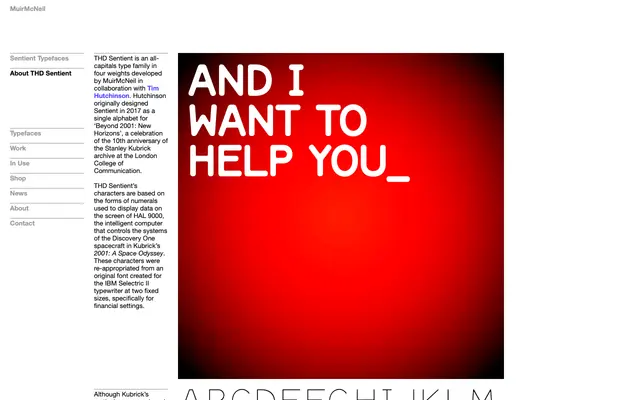
THD Sentient
Muirmcneil · Tim Hutchinson · 2017
An all-capitals display family derived from the IBM Selectric II numerals famously visible on HAL 9000's screen in Kubrick's 2001: A Space Odyssey, extended into four monolinear weights by MuirMcNeil and Tim Hutchinson.
Originally designed by Tim Hutchinson in 2017 for a Stanley Kubrick archive exhibition, THD Sentient traces its letterforms back to IBM Selectric II numerals that were repurposed for HAL 9000's display screens in 2001: A Space Odyssey. MuirMcNeil rationalised and expanded Hutchinson's single alphabet into a fully functional all-capitals character set across four weights, each set on bodies of identical width. Monolinear and proportionally spaced, it carries the air of a retrofuturist computer terminal without tipping into pastiche.
An all-capitals, monolinear, proportionally spaced display family derived from IBM Selectric II numerals as seen on HAL 9000's screen in 2001: A Space Odyssey; its stark geometric forms and sci-fi lineage place it firmly in the display category.